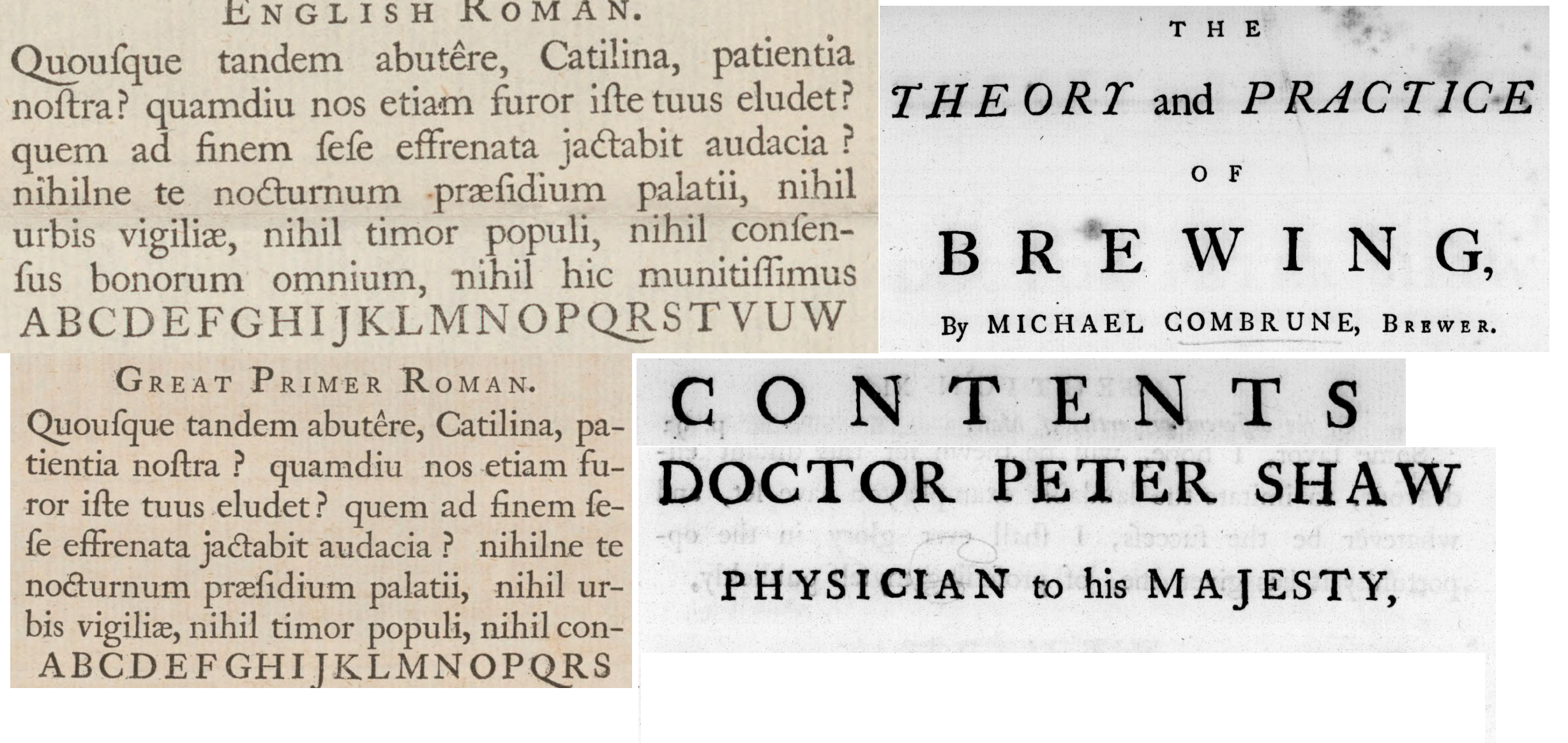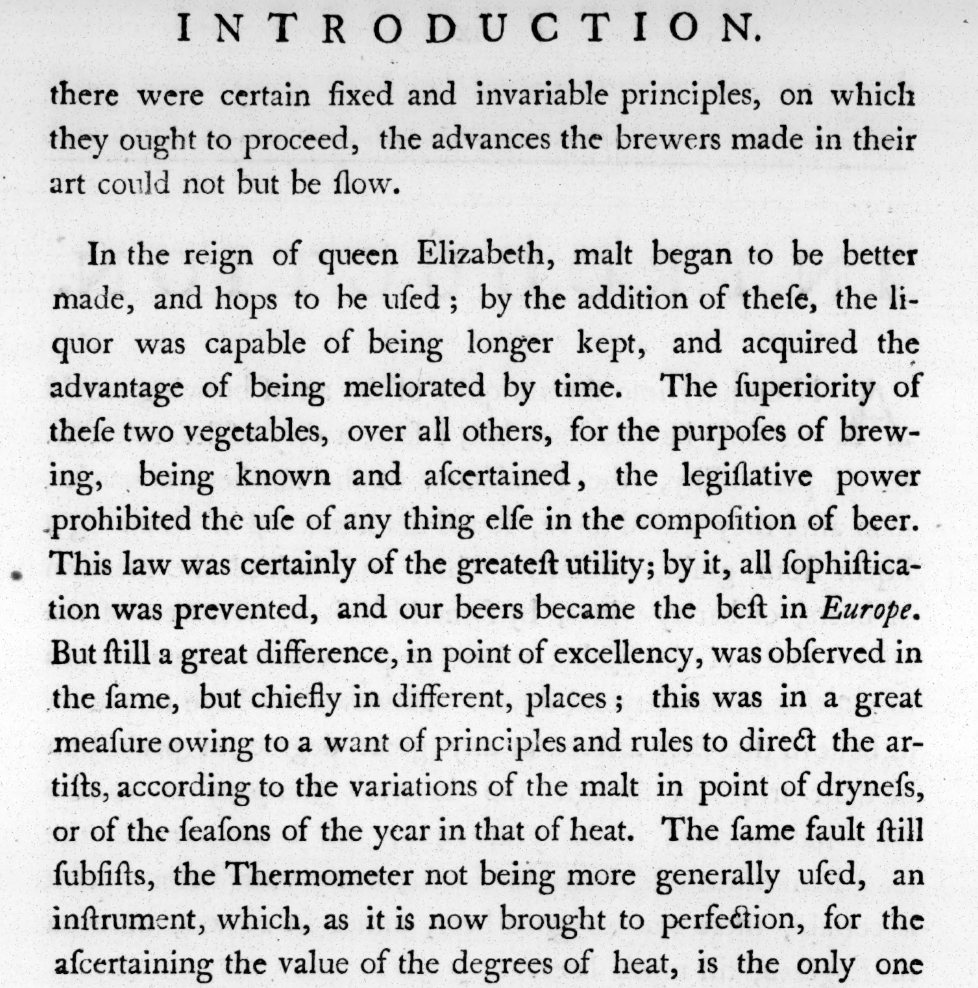
Mid 18th century British type, post-Caslon
I am wanting to get into bookbinding as a hobby with some new found financial freedom, particularly printing and binding out of circulation historical works. But I'm struggling with this one. It doesn't really fit Caslon or Fell, and it's too early to be Baskerville (it doesn't match Baskerville anyway) but seems to be related to that style of serif typeface.
The book was published in 1762 in London, printed by a J. Haberkorn if that's of any use at all. The specific publisher is not actually named. I've included screenshots of the Caslon specimen and some example characters from the work. Thank you in advance!
I've actually started recreating this type in FontForge on the basis that it probably doesn't exist in digital form anyway, but I'm asking in the hope that someone might recognise and identify and I can then fill in the gaps where this book hasn't used certain characters, rather than just estimate them.